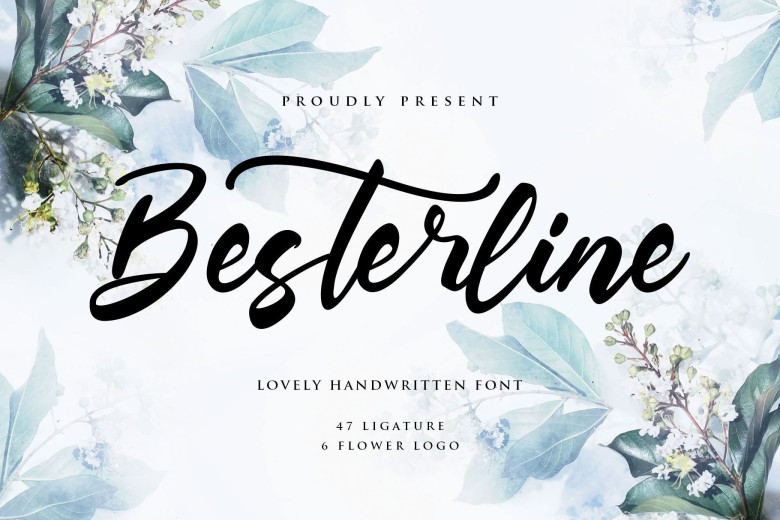
Besterline Handwritten Script Font
Besterline Font is a chic handwritten script font. It has bold a modern calligraphy look making it perfect for branding and digital designs. Use this font for logos, social media, websites, blogs, instagram, business cards, branding, and more!